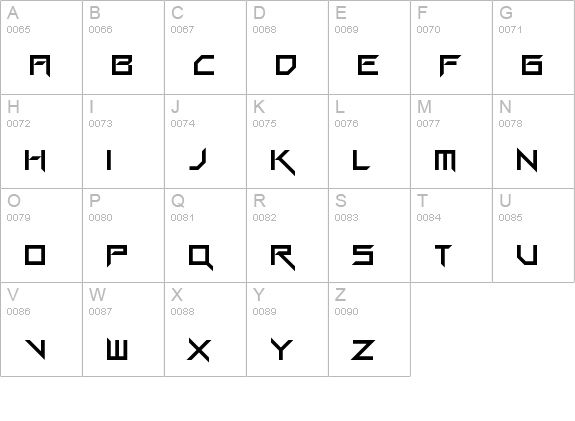
Gang Wolfik Blade Regular is the standard, neutral variant in the Gang typeface family \xE2\x80\x94 well suited to general body text, paragraphs, and standard typographic work.
Gang Wolfik Blade Regular font exudes a fierce and edgy vibe with its sharp lines and bold presence. This font is perfect for projects that require a touch of rebelliousness and strength. The clean and modern design of Gang Wolfik Blade Regular makes it versatile for various creative endeavors, from branding to graphic design. And the best part? Gang Wolfik Blade Regular font is available for free download at FontsMarket.com. Embody the spirit of the wolf with this striking font and unleash your creativity without any cost. Let Gang Wolfik Blade Regular add a touch of wildness to your designs and make a powerful statement.